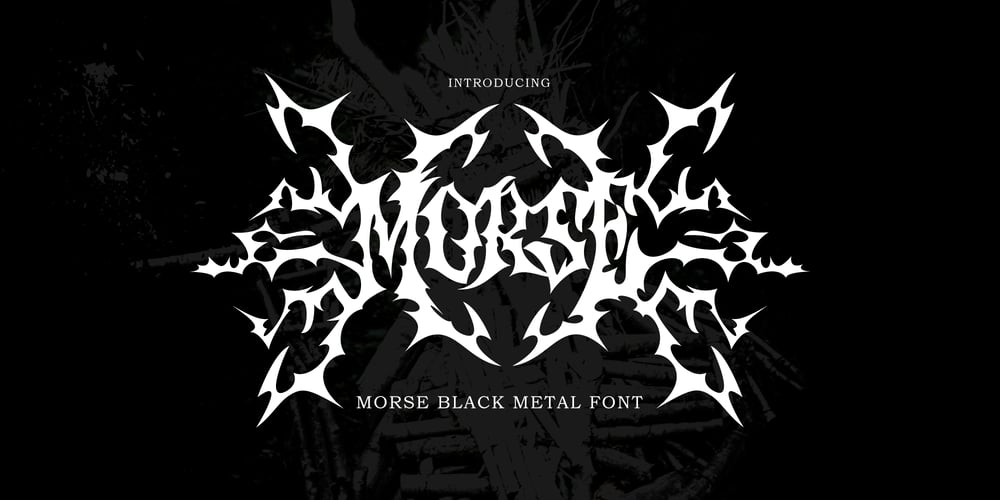
Morse Black Metal Font Font Family was designed by Dzulka Elfira and published by Tebaltipis Studio. Morse Black Metal Font contains 1 styles and family package options. Morse Font is a cool alternative for you to easily create a logo for your Underground band or whatever. Using alternate front and ending letters brings the font to life, It comes with a basic character set and a small group of symbols and signs often used in the extreme music sector.